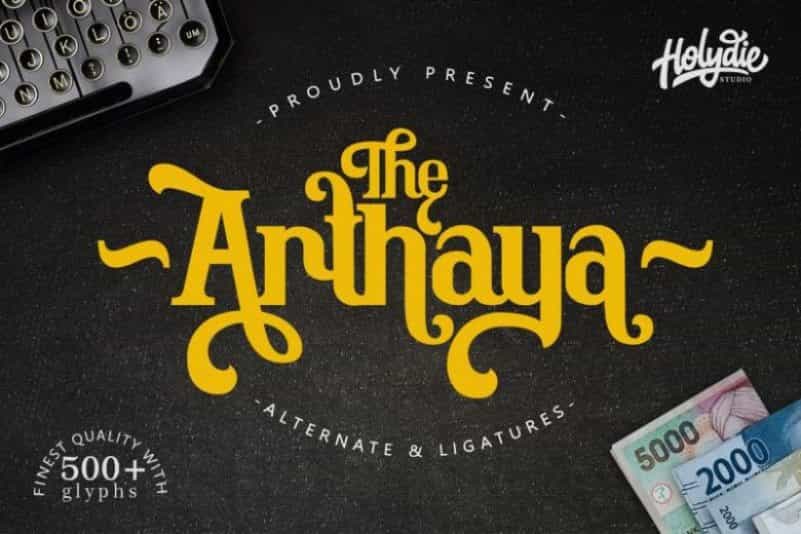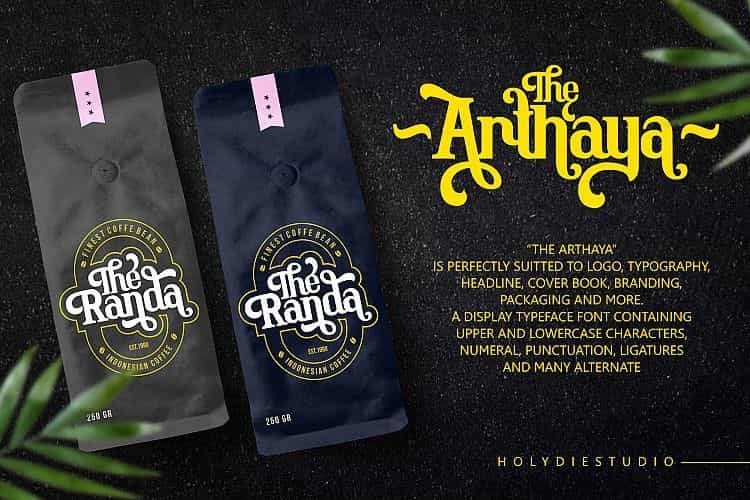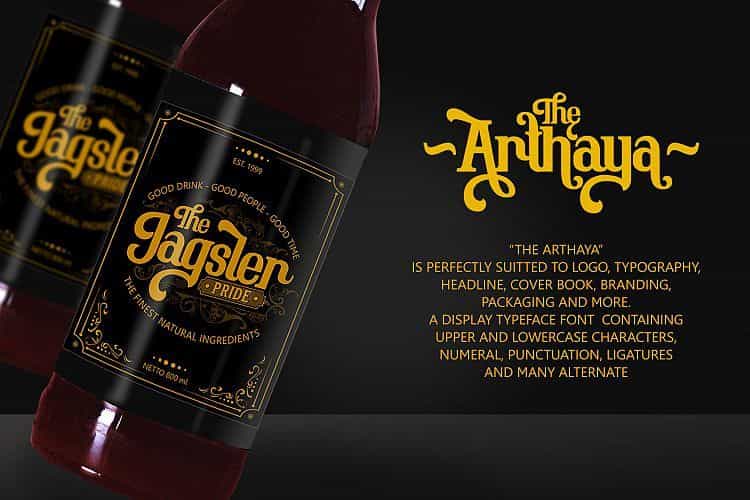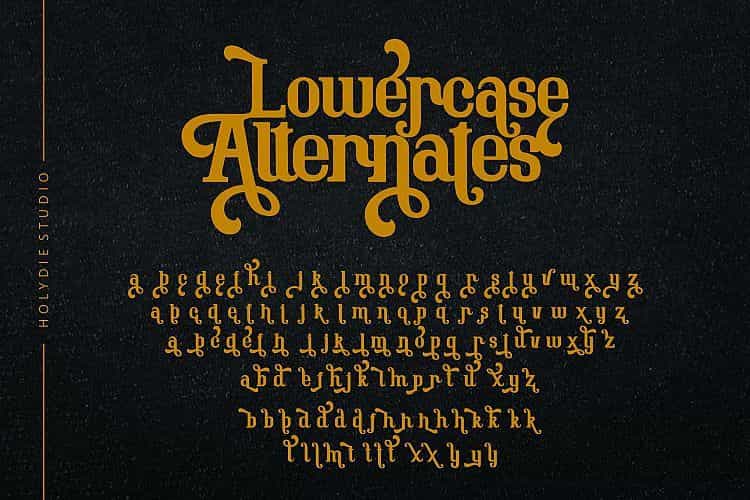
Presenting The Arthaya Font. The Arthaya is doing it with curves in the right measure and a little touch of aesthetics. Powerful character Suitable for headlines, logos, posters, packing, T-shirts, postcards and many other things.